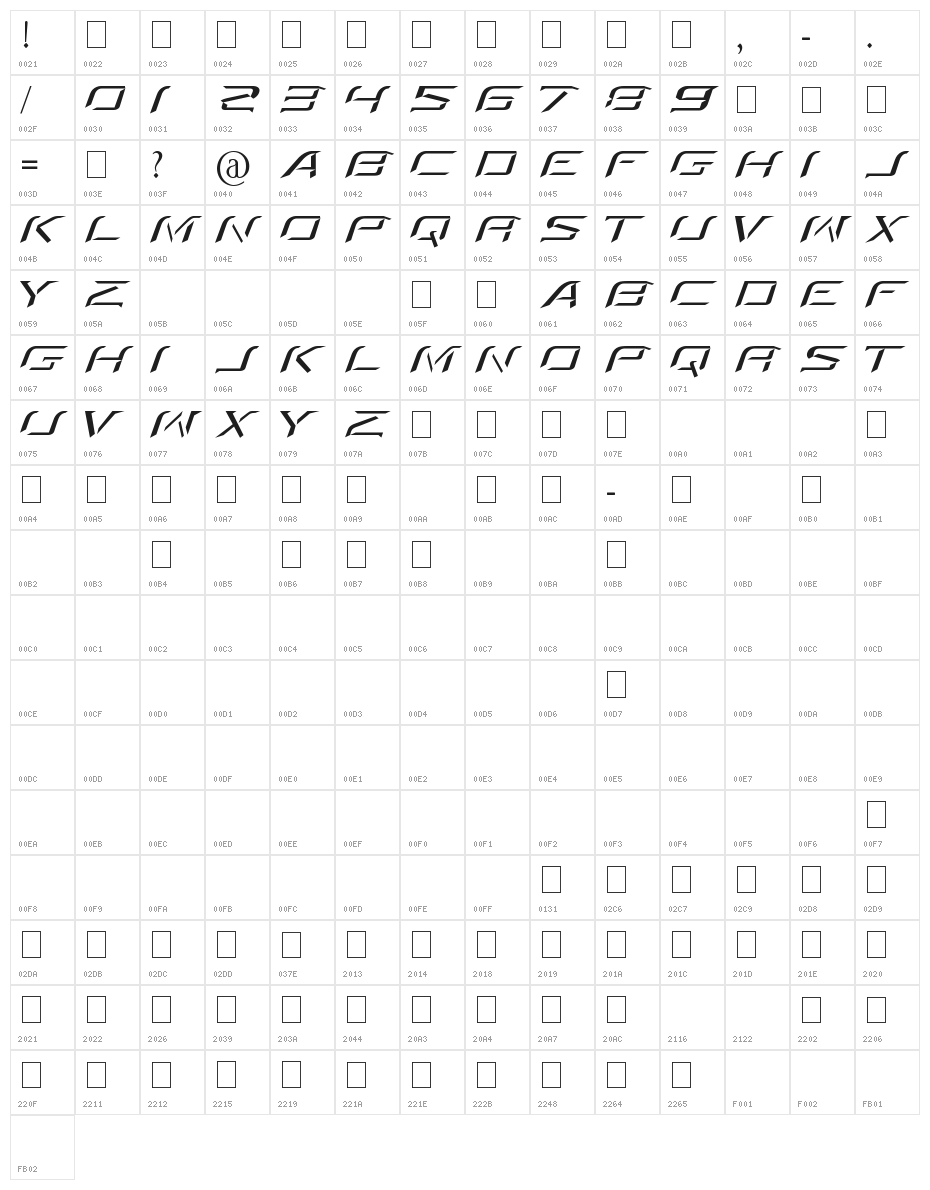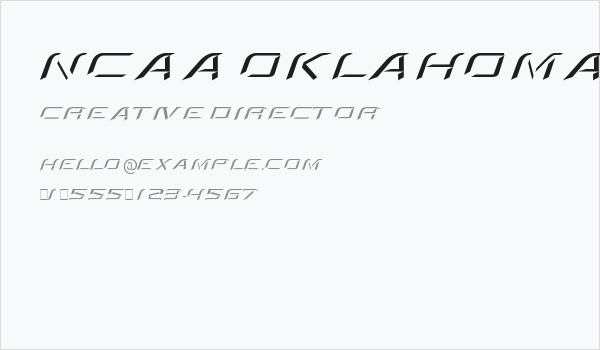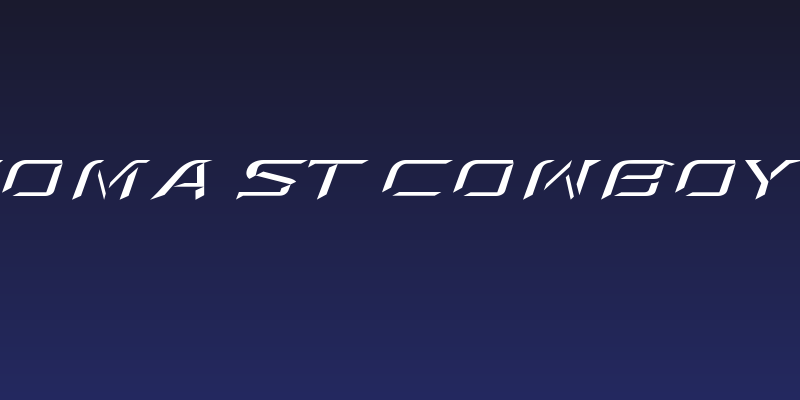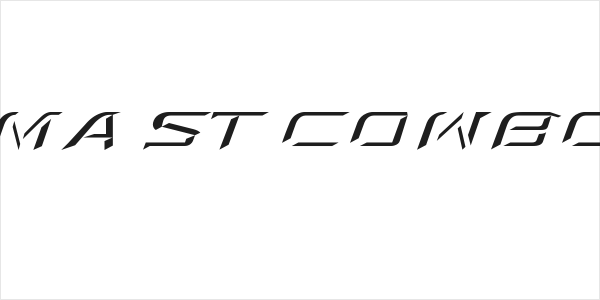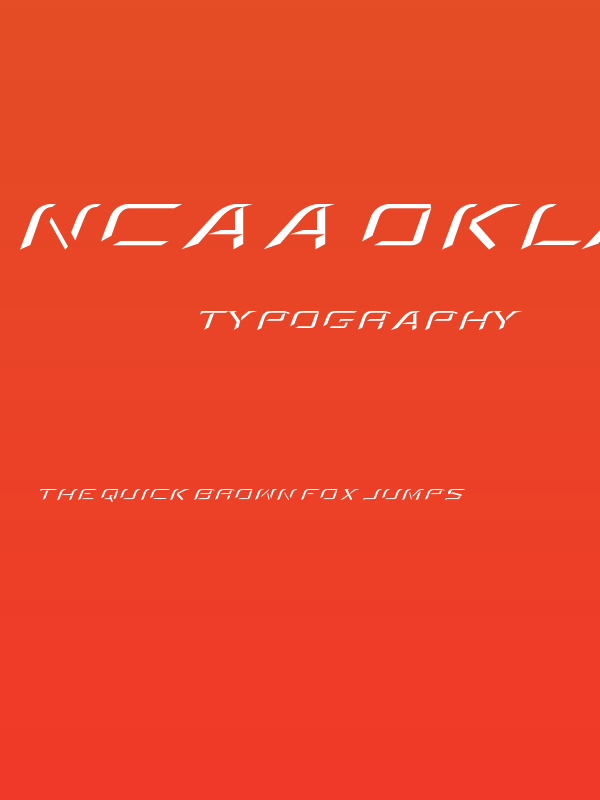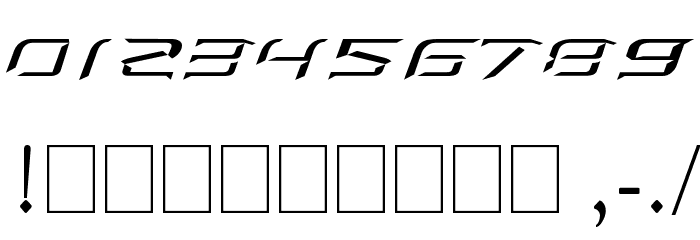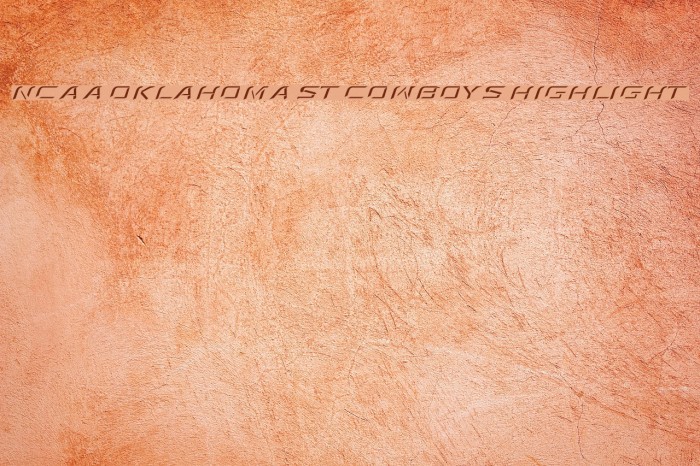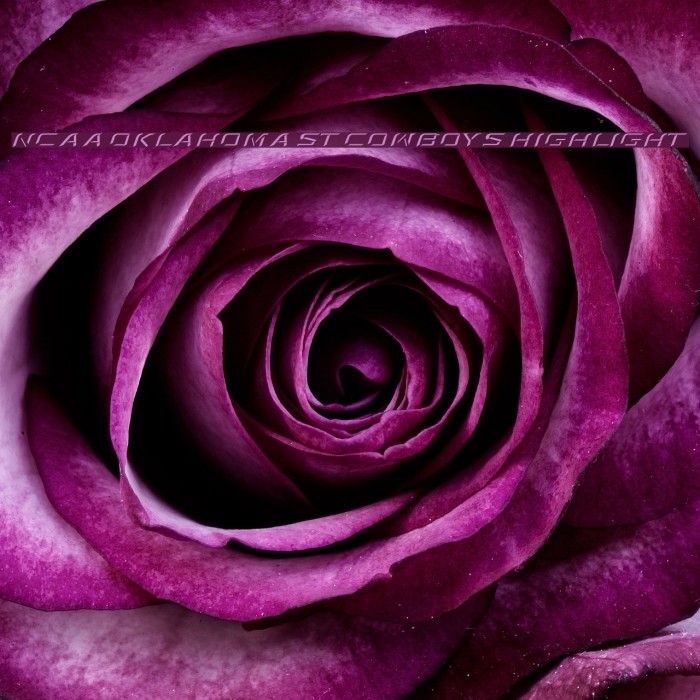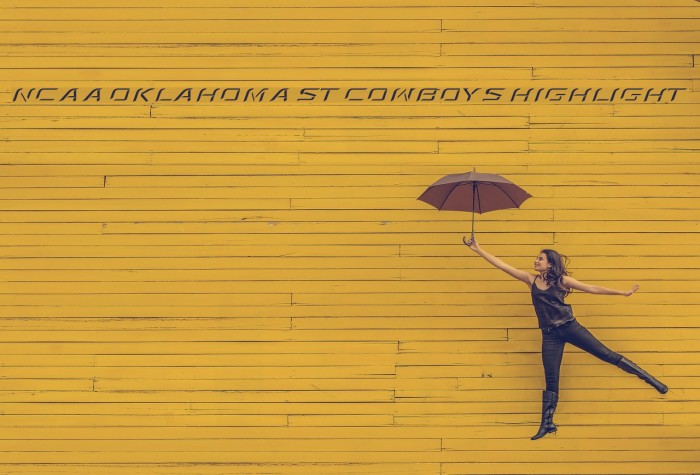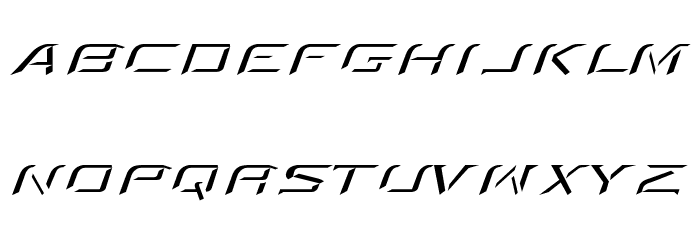
NCAA Oklahoma St Cowboys Highlight Font
NCAA Oklahoma St Cowboys Highlight Description
This font features a dynamic and angular design, characterized by sharp edges and a futuristic aesthetic. The letters are slanted, giving a sense of motion and speed, which is enhanced by the geometric cuts and pointed terminals. The uppercase and lowercase letters maintain a consistent style, with a uniform slant and angularity. Numbers follow the same design principles, ensuring a cohesive look across all characters. The special characters are designed to match the overall style, with similar angular features and slanted orientation. This font is ideal for projects that require a modern and edgy appearance.